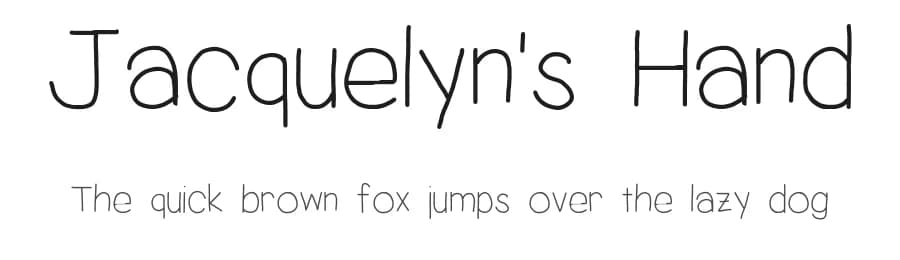
About Jacquelyn's Hand Font
Jacquelyn's Hand is a script & handwritten font designed by Jacquelyn Soh. It includes 120 glyphs, a regular weight, TTF (TrueType) format, and 107 languages. Jacquelyn's Hand is free to download; check the license details on this page before commercial use. Script & handwritten fonts like Jacquelyn's Hand work best for wedding invitations, greeting cards, signatures, and elegant branding.
Jacquelyn's Hand Font is a script font that shines as a display or heading face. Pair it with a clean sans-serif or serif font for body text β the contrast creates a clear hierarchy while the two styles stay balanced and easy to read.
Jacquelyn's Hand Font
Jacquelyn's Hand Font is a script handwritten typeface by Jacquelyn Soh, ideal for logos, invitations, branding, and creative projects.